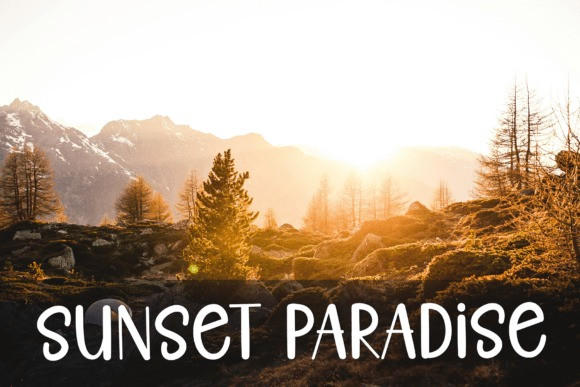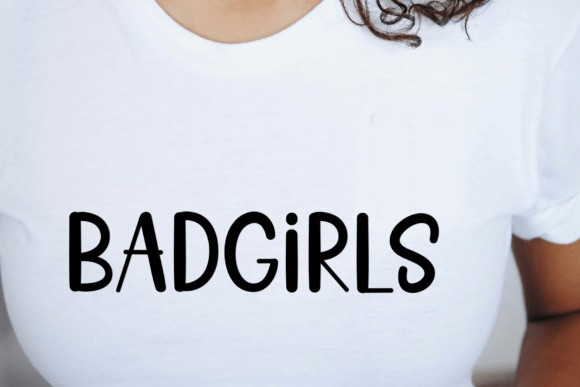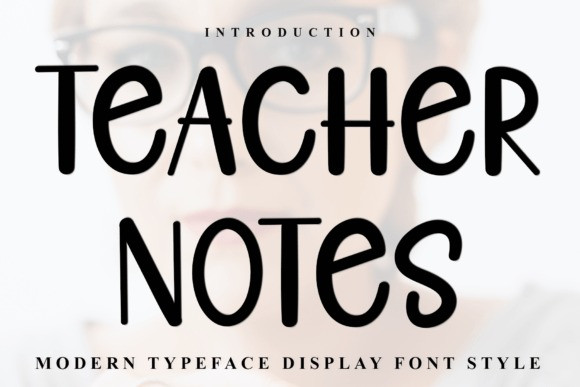
Teacher Notes Display Font
Teacher Notes Display Font is a lovely and timeless handwritten font. It is the best choice for creating eye catching logos, branding and quotes. Every letter has a unique and beautiful touch, which will make your design come alive!